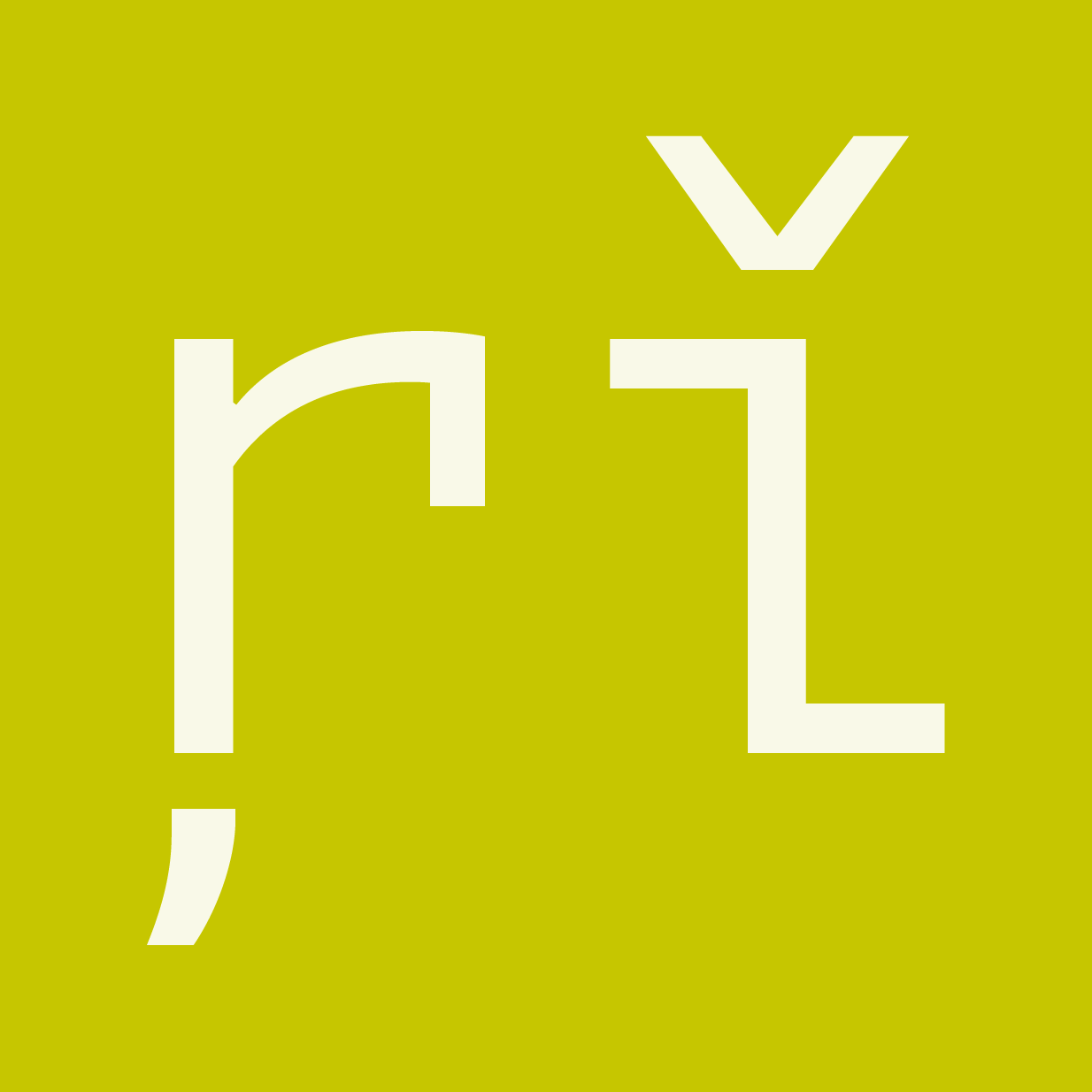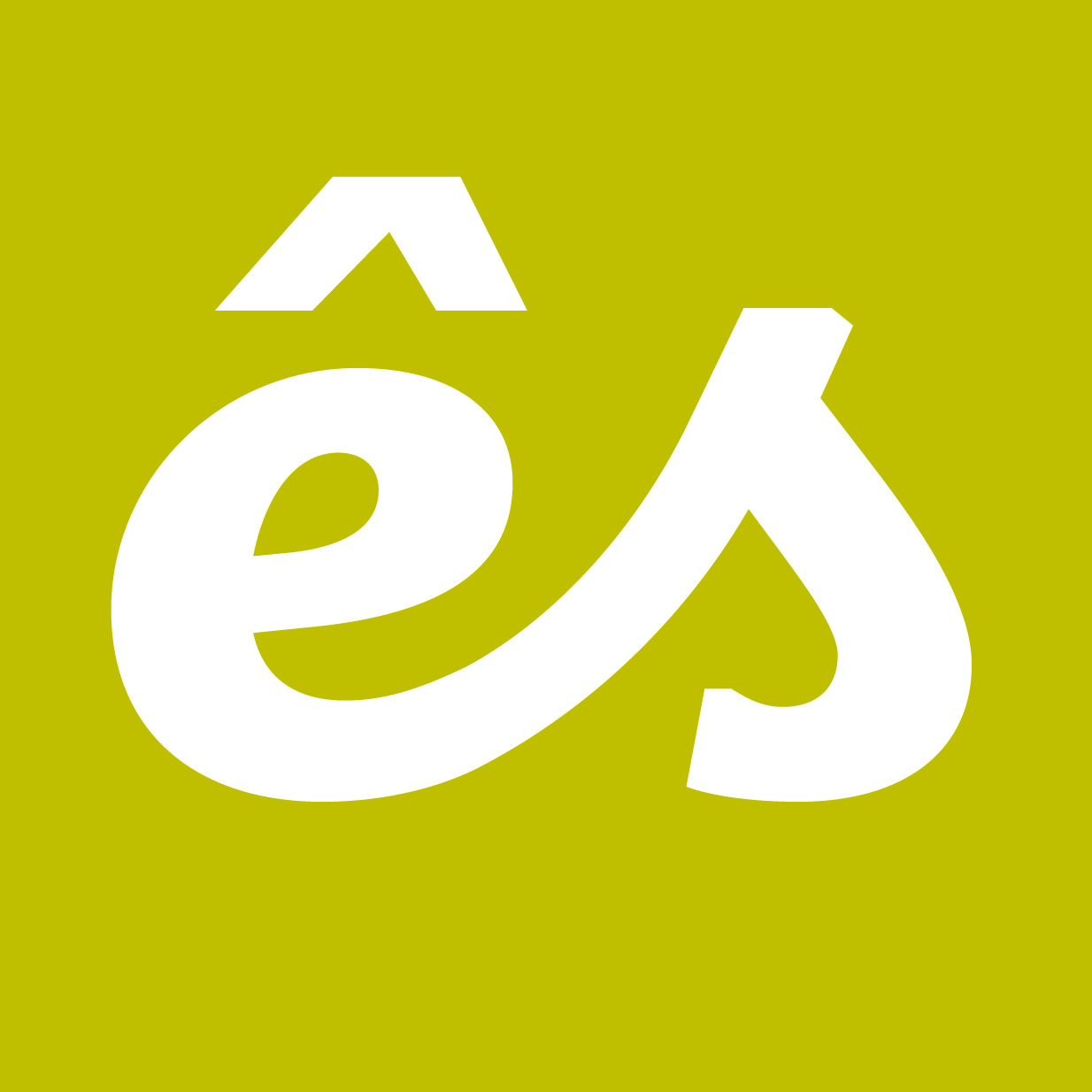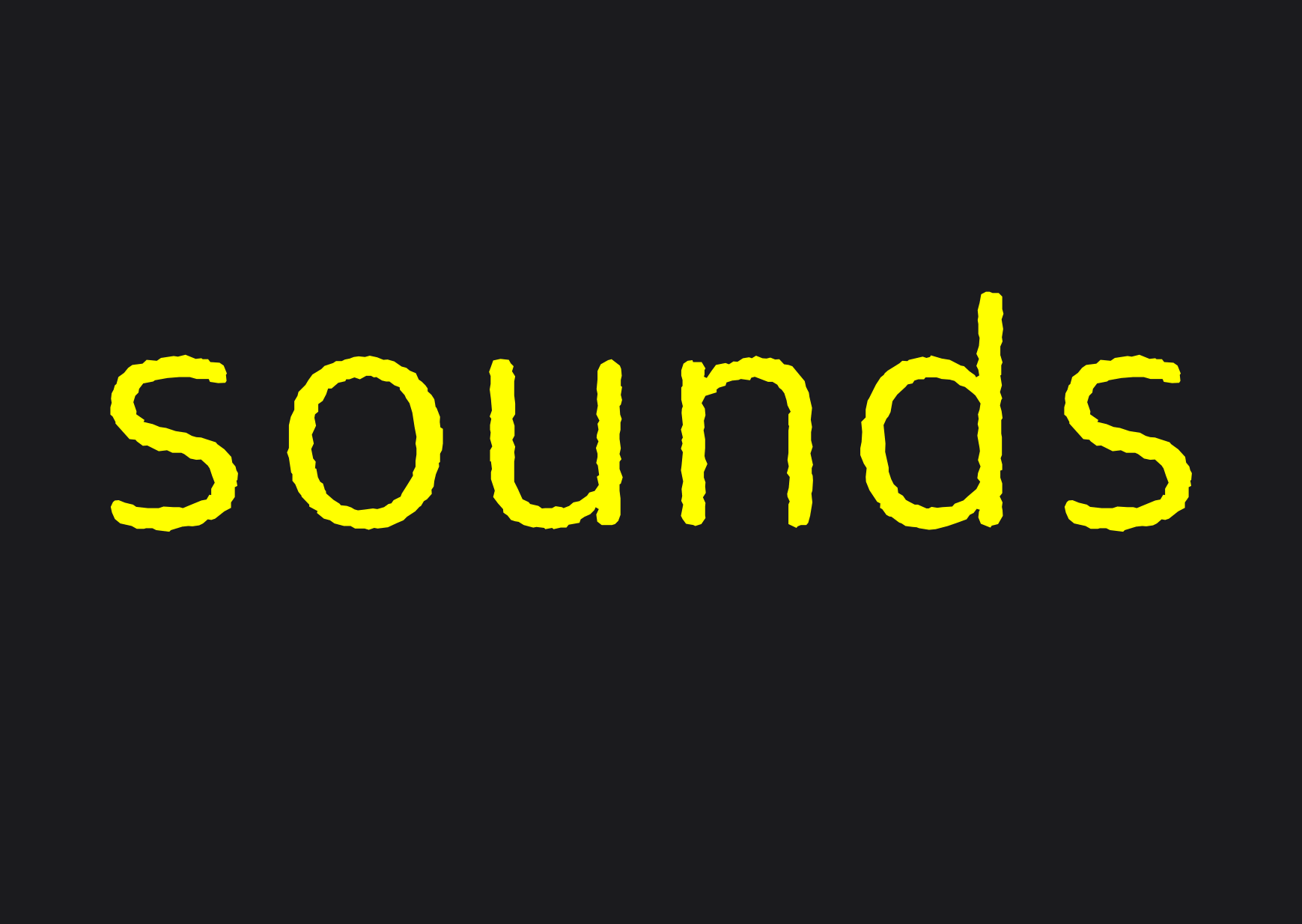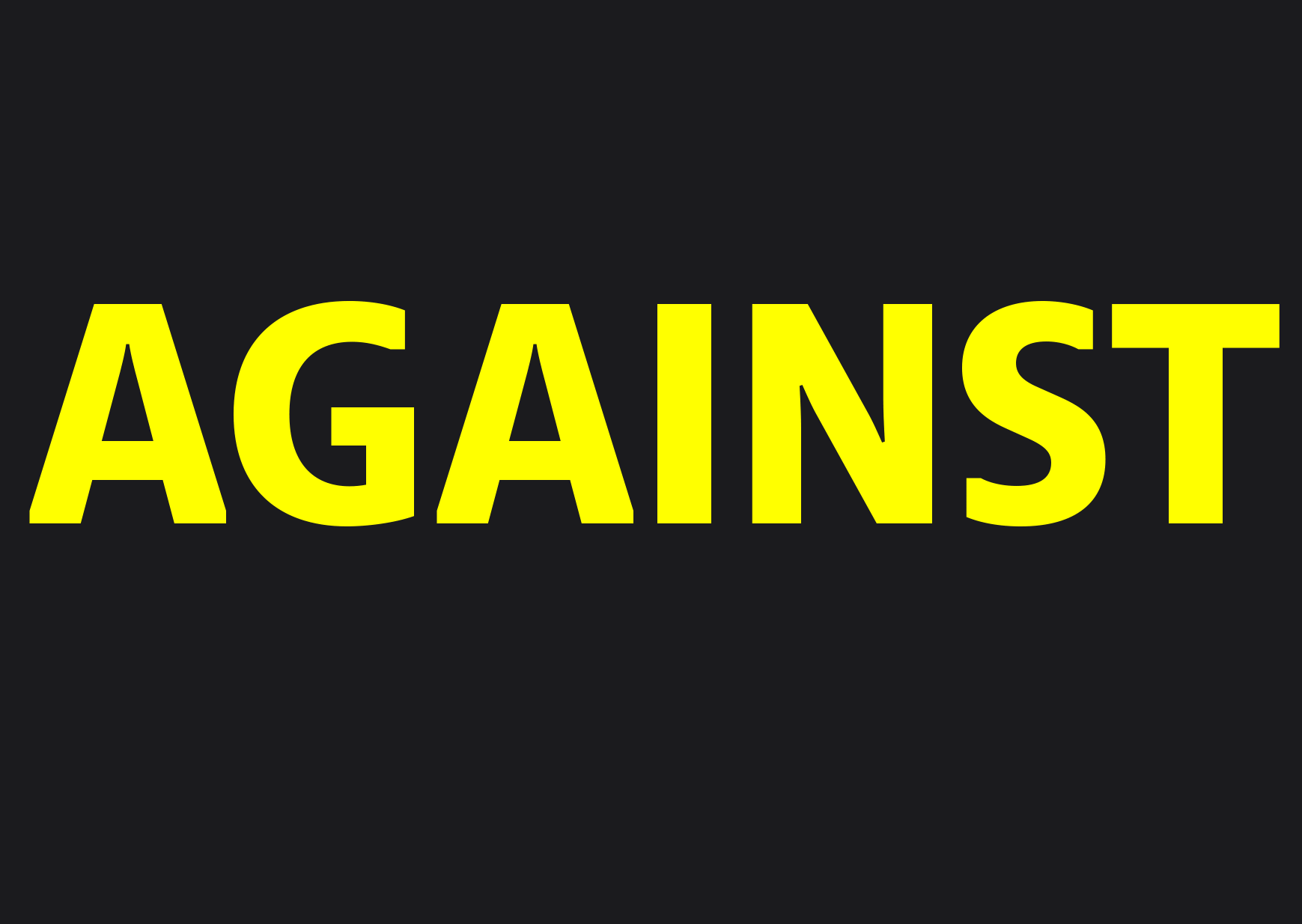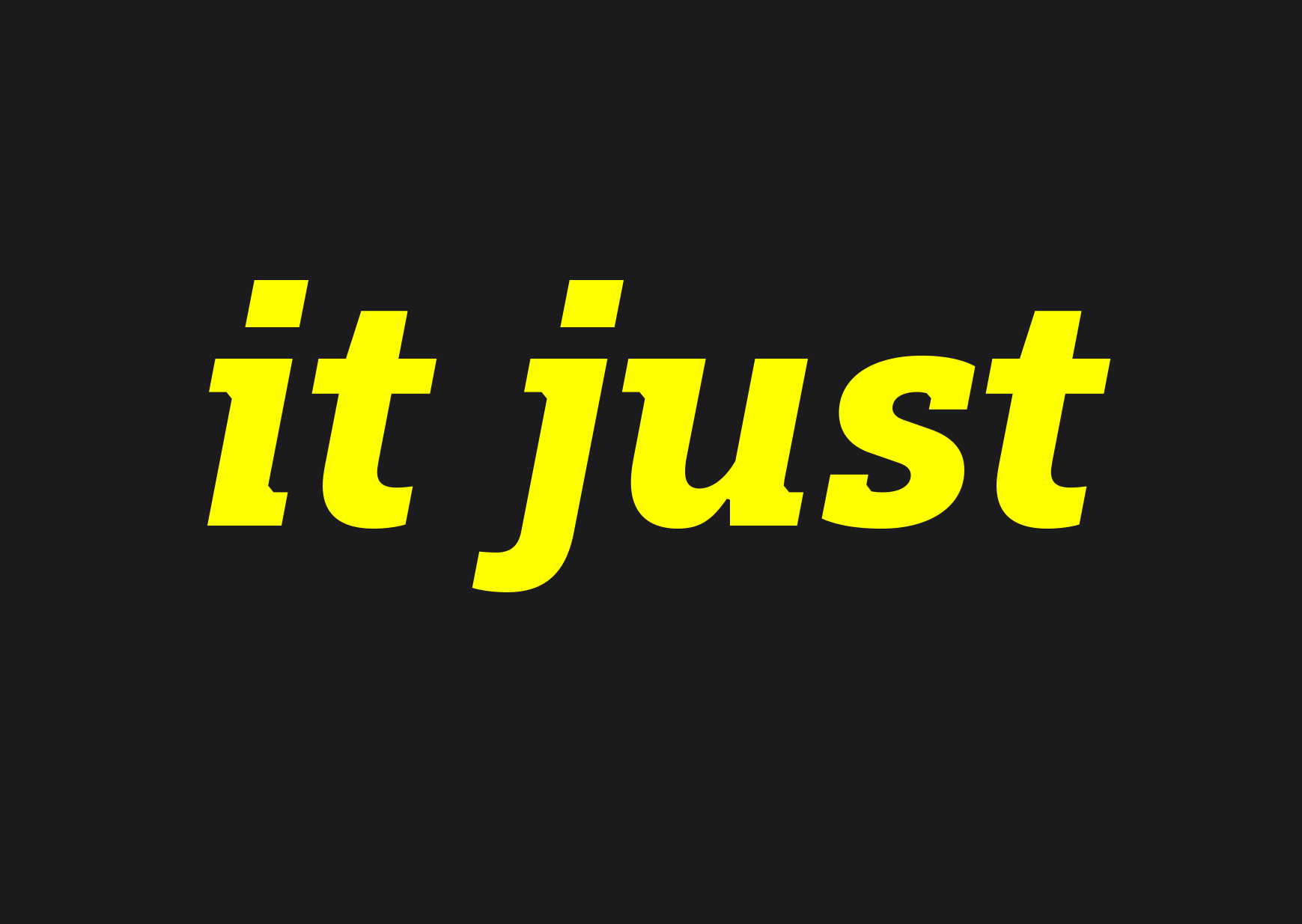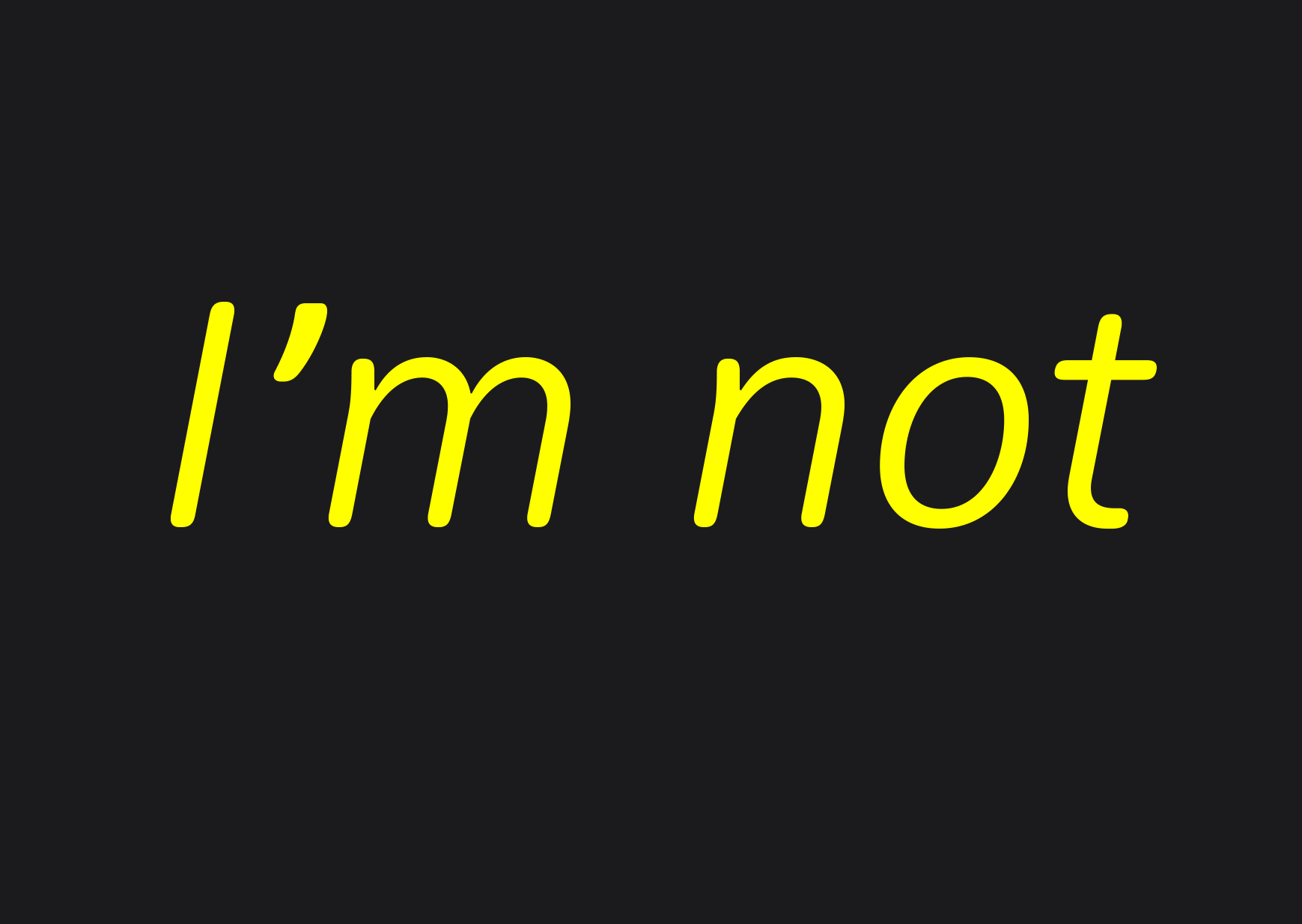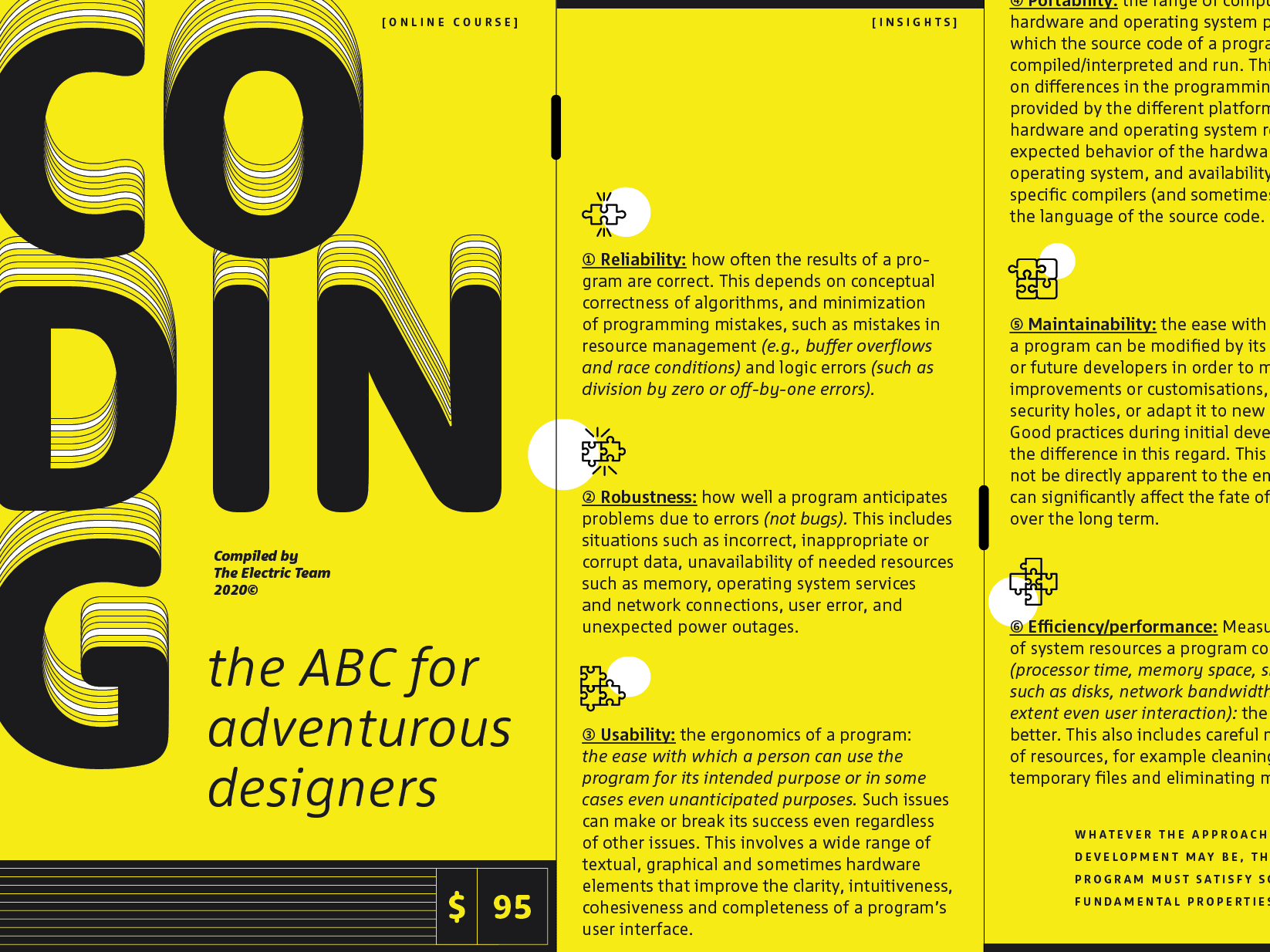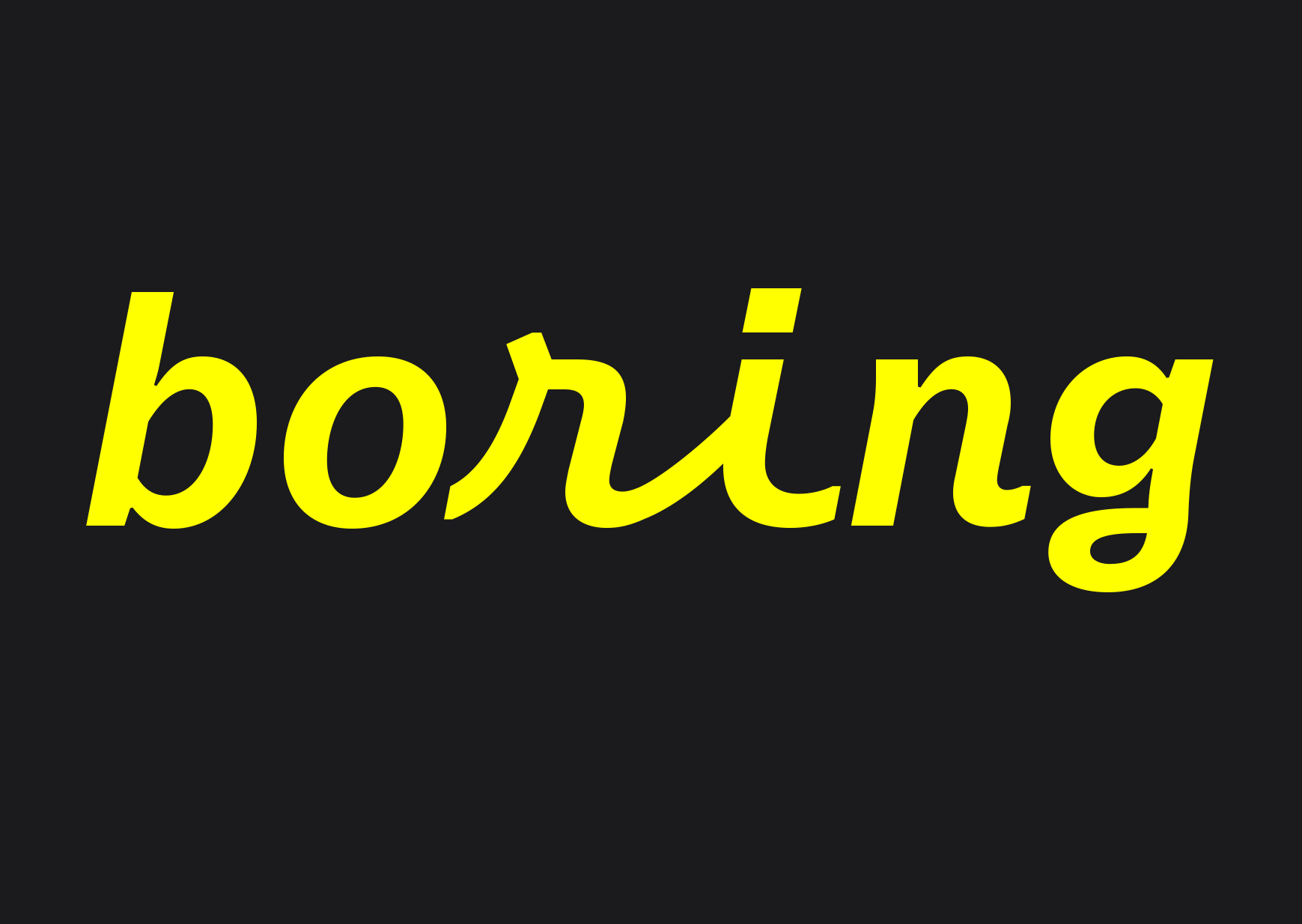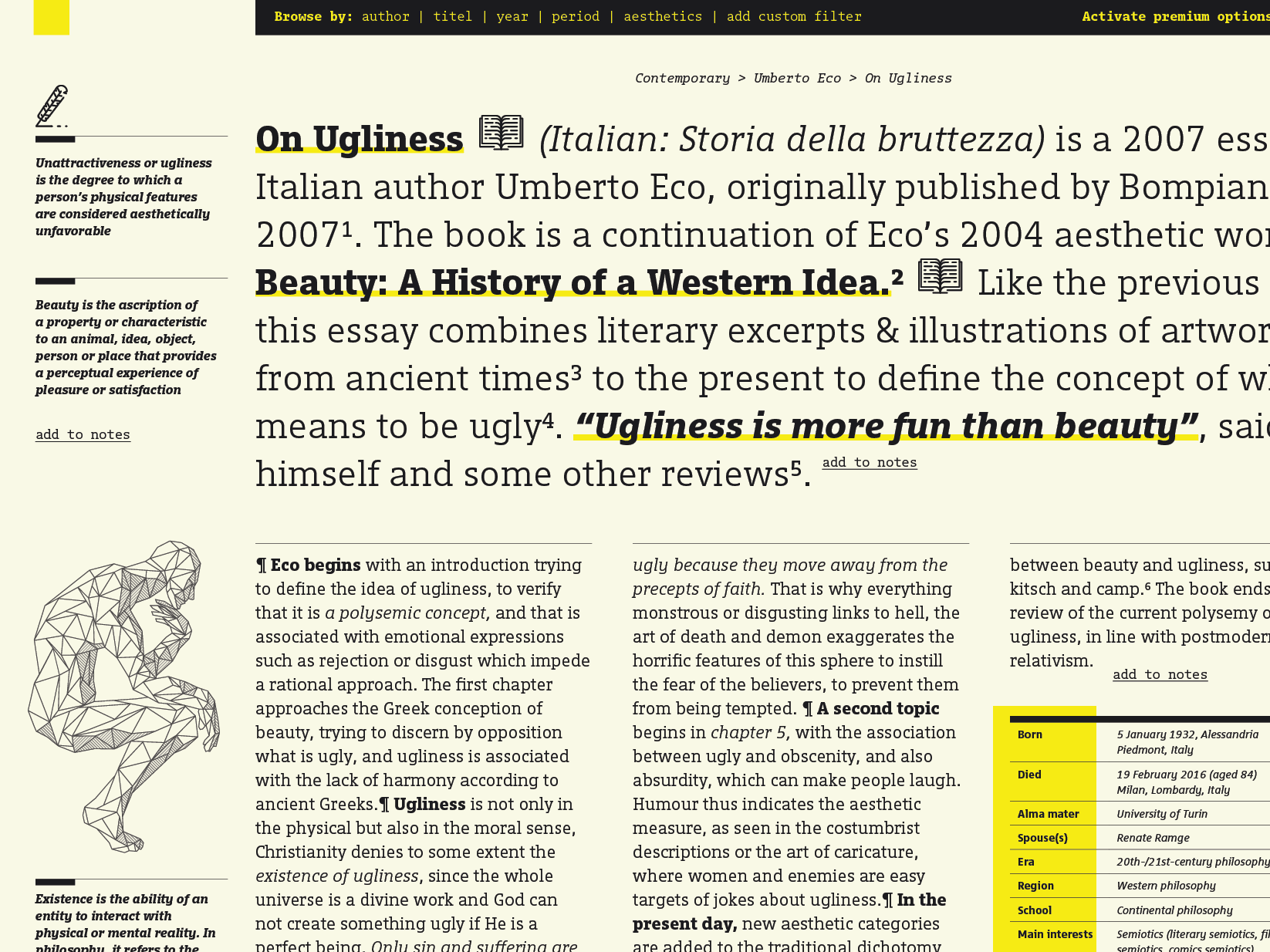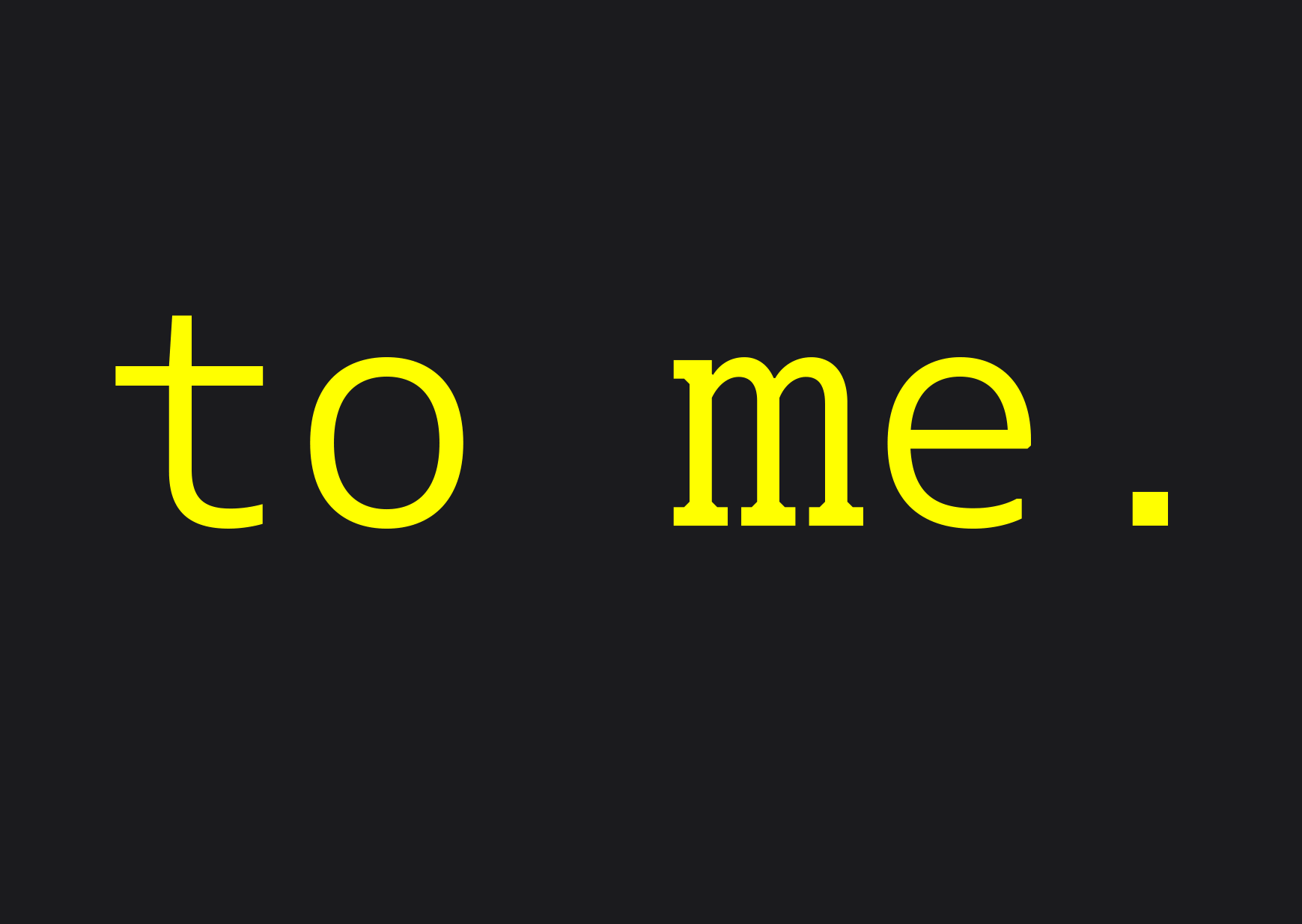
Dico
Dico is a varied suite of typefaces by Pieter van Rosmalen encompassing eight proportional and monospaced sub-families. It circles around a sans-serif van Rosmalen started in 2004 for design studio Teldesign, now comprehensively updated and expanded upon.
The basic structure and feel of Dico (Latin for “I speak, I talk, I give a speech”) is shaped by compact proportions and open, yet restrained letterforms that gain in friendliness and warmth when accompanied by their more swinging italics. Monospaced script styles – loosely based on Corinthian Script for the IBM Selectric – can bring things into an even more delightful direction. The weight range may seem small compared to other large type families but Dico more than makes up for that with other matching variations on the theme. Next to the Sans you can choose from a Slab-serif, the rounded Dico Soft, monospaced Sans and Slab, two Code variants, and Dico Typewriter containing “rough” versions of Dico Mono Sans, Mono Slab and Mono Script. 45 fonts in total.
OpenType features for alternative letterforms let you customize your design even more. Sans and Slab are available with square as well as round dots; Mono and Mono Slab include alternates for “f”, “i”, “l” and “r” (split into Code One and Two with swapped defaults and different fractions). The character sets encompass Latin Extended including Vietnamese and symbols for Powerline in the Code styles.